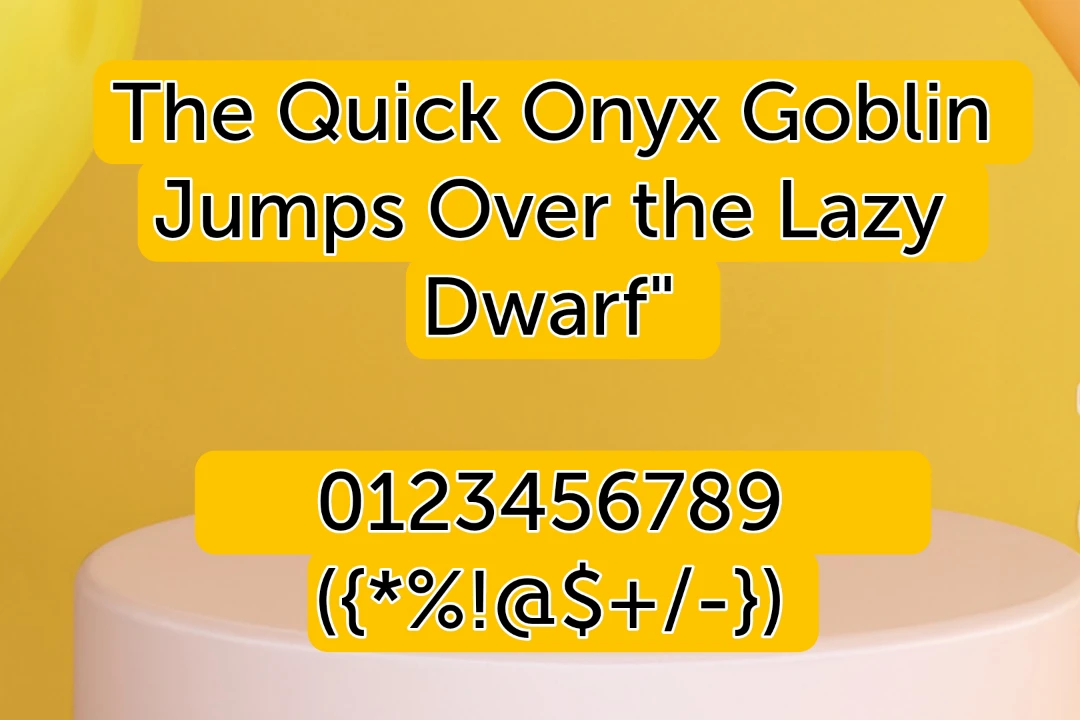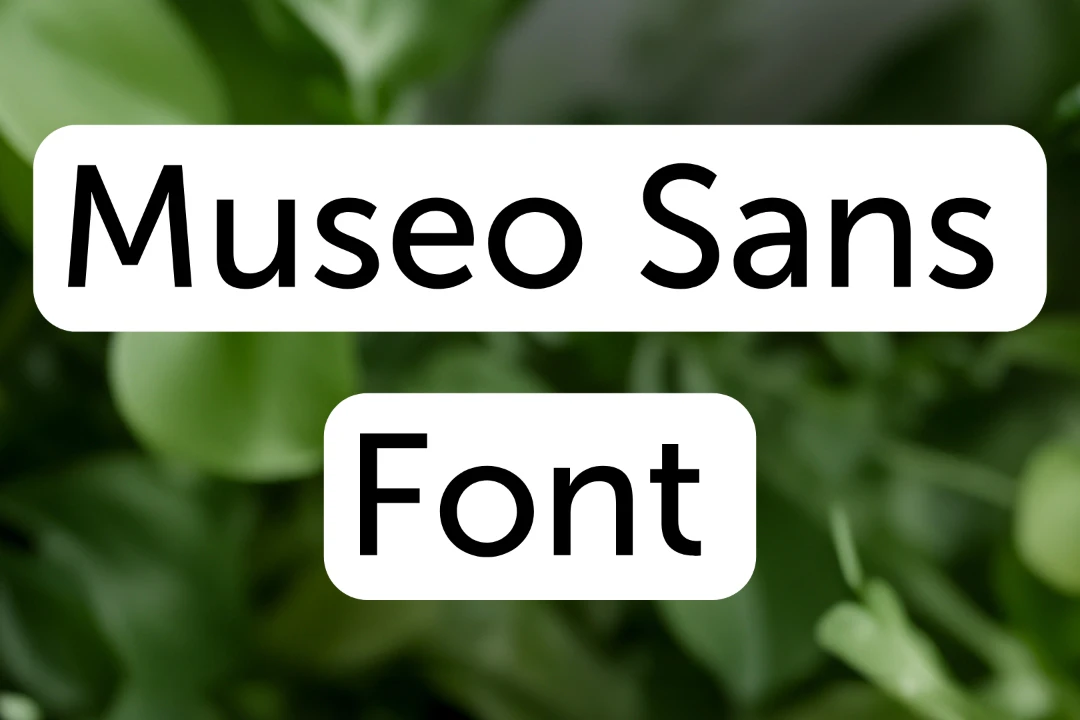
The Museo Sans font is a versatile typeface designed by Exljbris Font Foundry. It falls under the category of sans-serif fonts, known for their clean and modern appearance.
With its sleek design, it offers a professional and contemporary look that suits a variety of design projects. It was first released to the public in 2008.
It comes with extensive language support, making it suitable for multilingual projects. From English to Spanish and French to German, Museo Sans ensures clear communication across various languages.
| Designer | Exljbris Font Foundry |
| Style | Sans Serif |